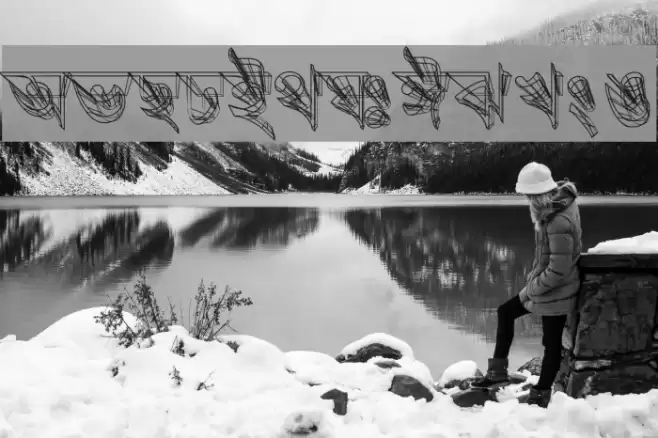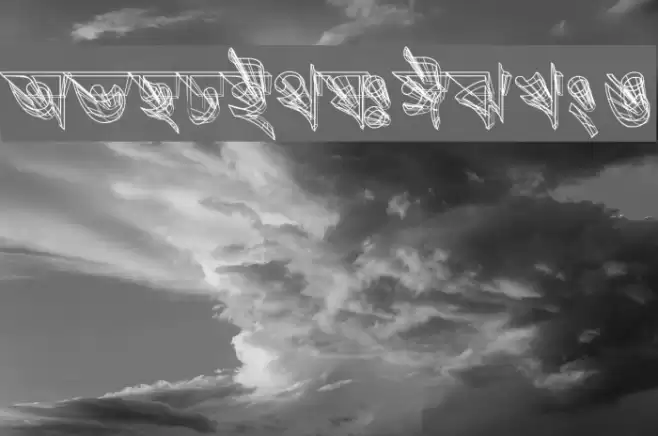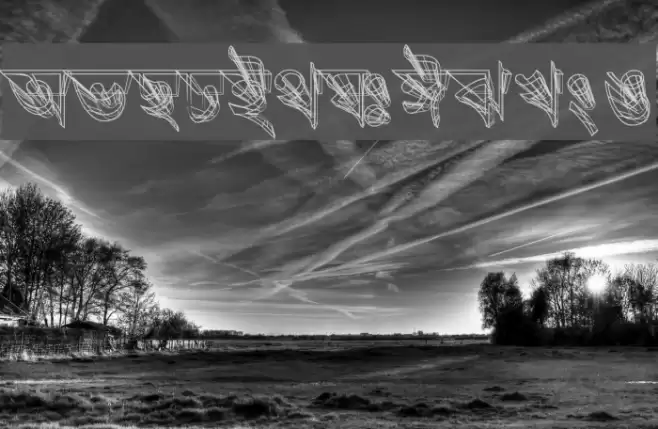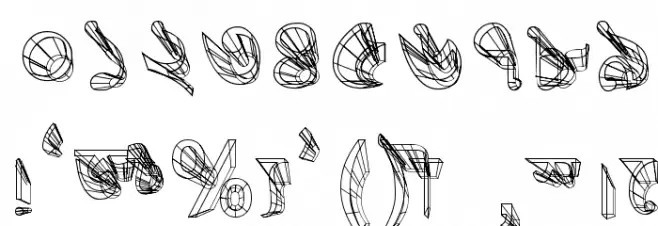
Progoty 3D Font
Progoty 3D Description
This font features a unique 3D wireframe design, giving it a futuristic and abstract appearance. Each character is constructed with a series of intersecting lines and curves, creating a sense of depth and complexity. The letters and numbers are highly stylized, with an emphasis on geometric shapes and angles. This design is not intended for readability but rather for artistic and decorative purposes, making it suitable for projects that require a bold visual statement. The font's intricate structure makes it ideal for digital art, posters, and experimental design projects.
A 3D wireframe font with a futuristic and abstract style from Uncategorized fonts.
- Proposed Projects: Digital art, posters, experimental design, and decorative projects.
- Character Spacing: Wide
- Overall Style: Futuristic, Abstract
- Use Case: Logos, Artistic displays, Experimental design